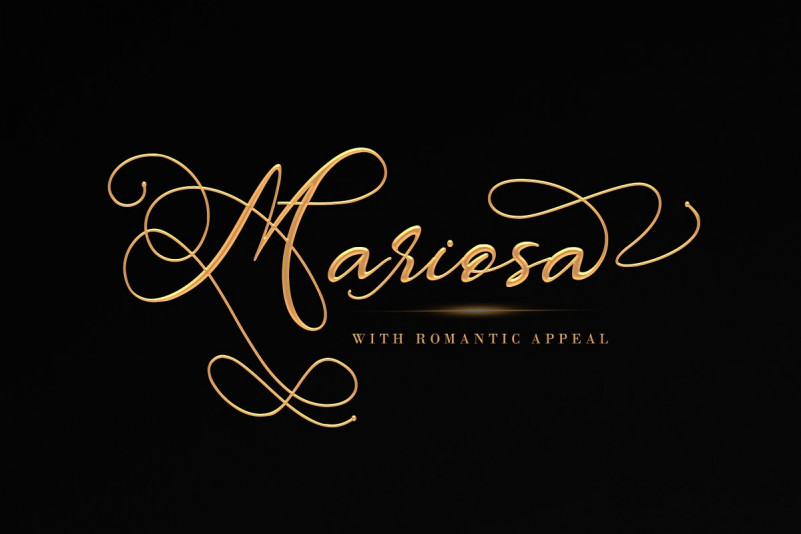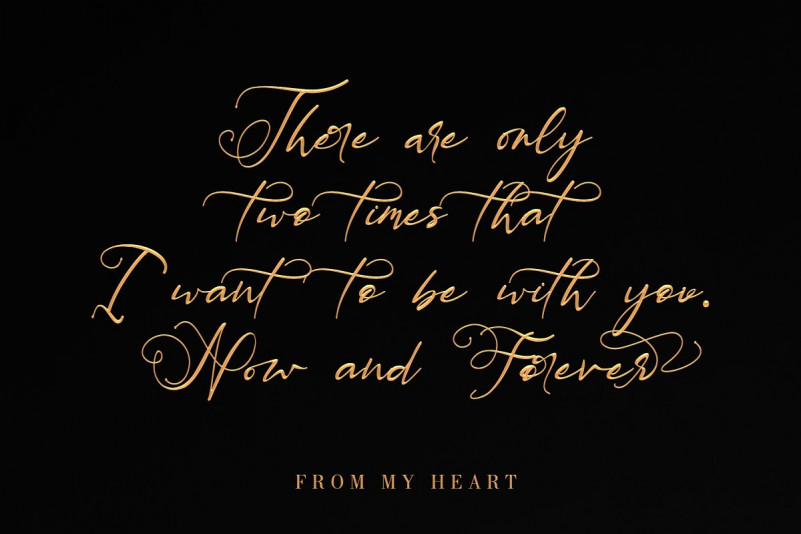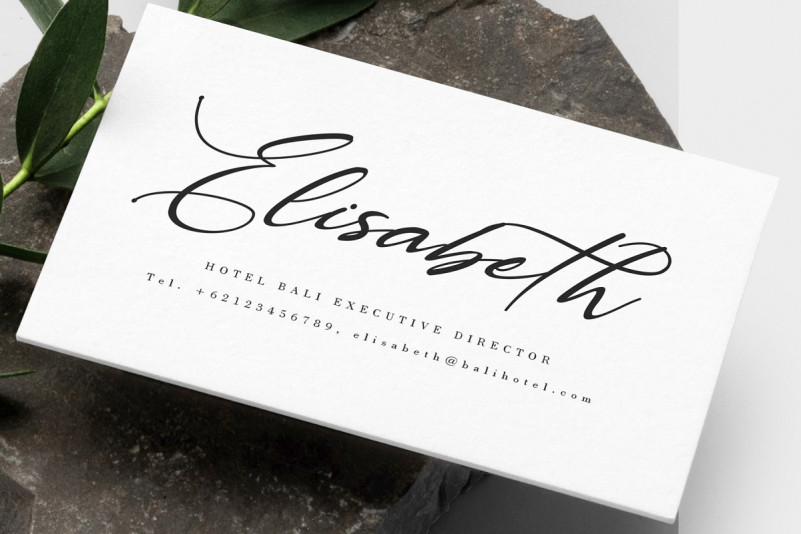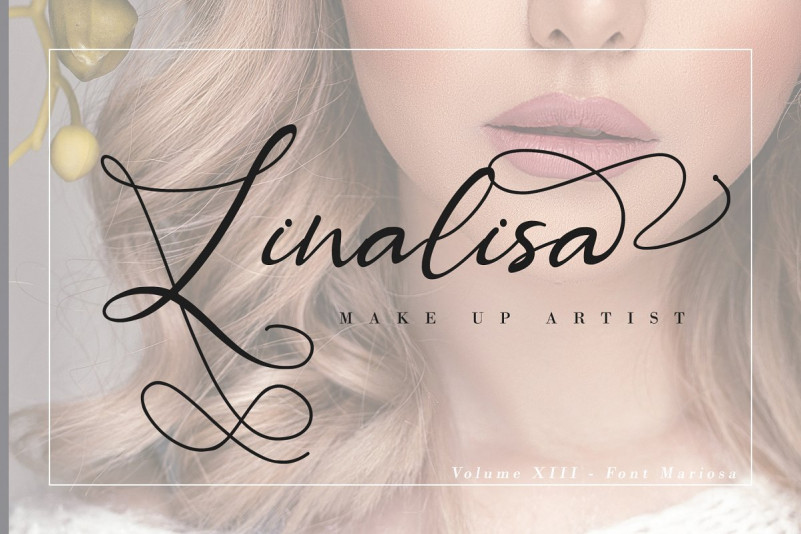
Mariosa Script Font
Mariosa Script – Demo Font
A modern calligraphy typeface by Leterara. This is a stylish calligraphy font with an amazing and natural style. It’s a one-of-a-kind typeface with a personal feel. use titling to give different letter effects, making it even more elegant! Introducing Mariosa Font. It’s an elegant font with a romantic appeal; this font is for those who are in need of an elegant and appropriately modern calligraphy script. Get inspired by its bold swashes. With natural calligraphy style perfect for many different projects such as logos & branding, invitation, stationery, wedding designs, social media posts, advertisements, product packaging, poster, product designs, label, photography, watermark, special events or anything, quotes, fashion, etc.